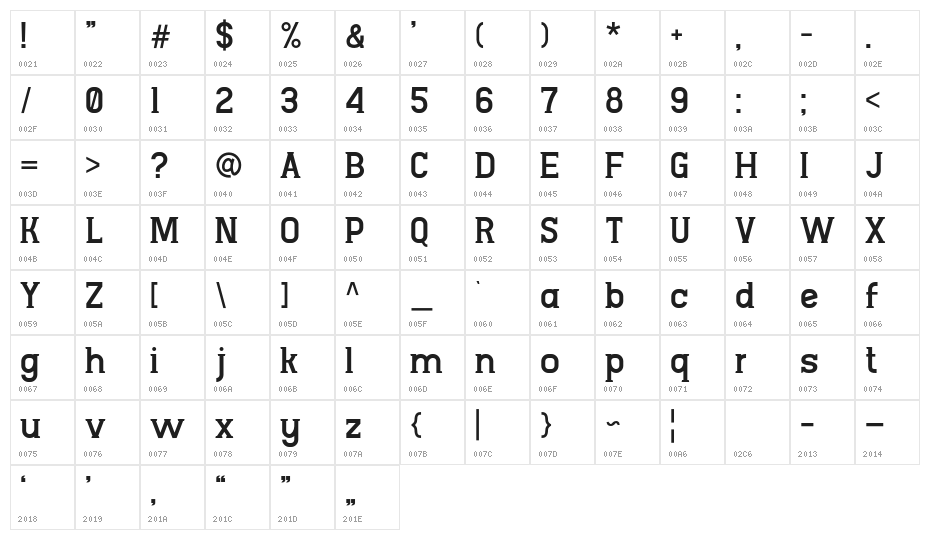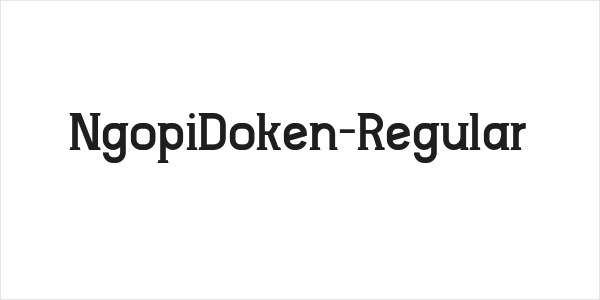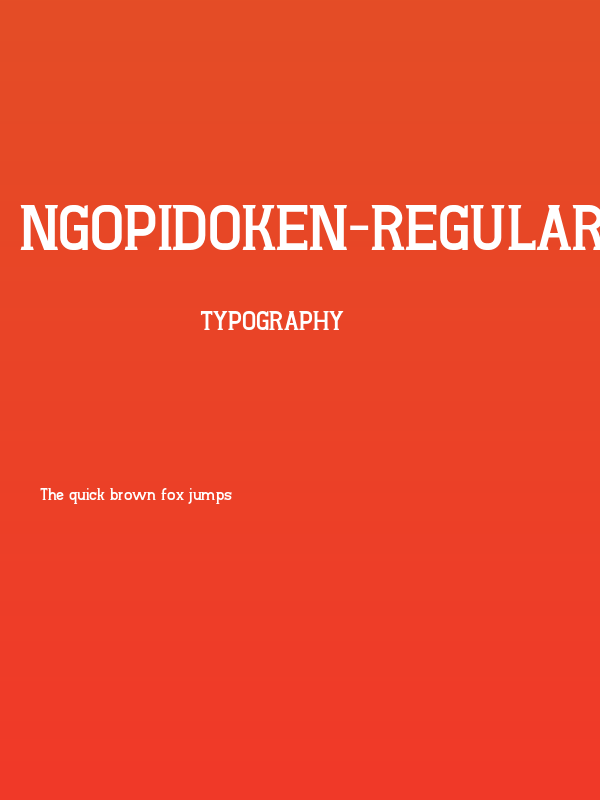
NgopiDoken-Regular Font
NgopiDoken-Regular Description
This font features a bold and structured design with a modern twist. The uppercase letters are strong and commanding, while the lowercase letters maintain a consistent and harmonious flow. The numerals are clear and easily distinguishable, making them suitable for various applications. Special characters are well-defined, adding versatility to the font's use. The overall appearance is clean and professional, with a slight geometric influence that enhances its readability and appeal.
| Proposed Projects | Ideal for branding, headlines, posters, and digital media where a strong, modern presence is desired. |